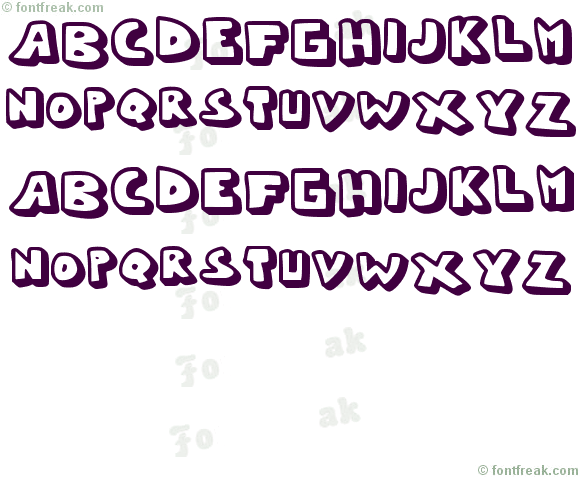
Whypo
About Whypo
Whypo by Davy Meykens is a distinctive display font that captures attention with its playful and bold design. Created in 2009, this font boasts a unique style characterized by its thick, rounded strokes and a slight irregularity that gives it a hand-drawn feel. The contrast between the heavy weight of the letters and the rounded edges creates a friendly, approachable aesthetic. The spacing is generous, promoting legibility and ensuring that each character stands out, making it ideal for a variety of creative applications.
The Whypo font is particularly well-suited for use cases that require a fun and informal touch. It works beautifully for wedding invitations, where its whimsical nature can add a personal flair. Additionally, it is perfect for children’s book covers, as its playful design resonates with a younger audience. Restaurant menus can also benefit from this font, where it can enhance the dining experience by providing a warm and inviting atmosphere. Furthermore, Whypo is great for marketing materials, such as flyers and posters, where grabbing attention is essential.
The target audience for the Whypo font includes graphic designers looking for a unique typeface to elevate their projects, small business owners seeking to create a memorable brand presence, and content creators who want to add a touch of creativity to their visuals.